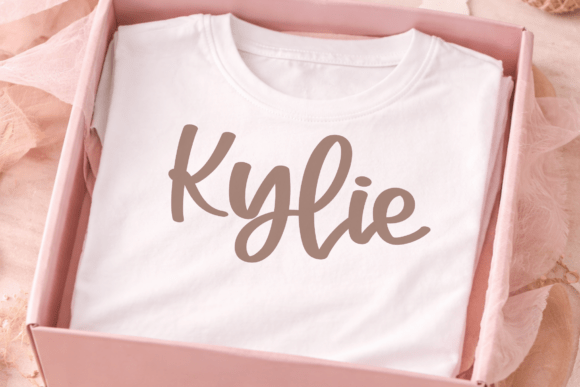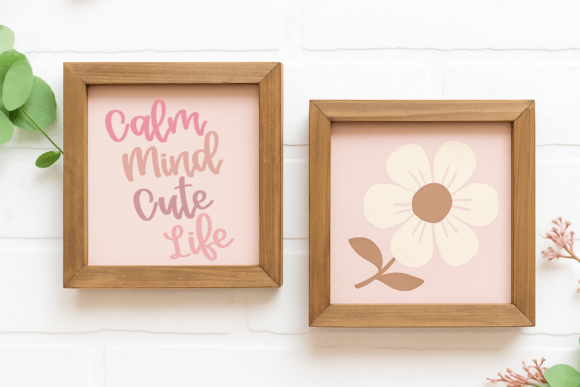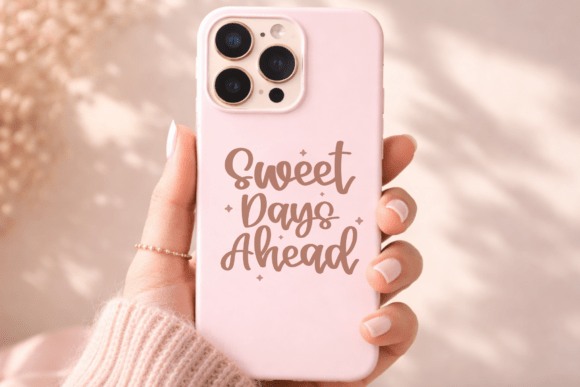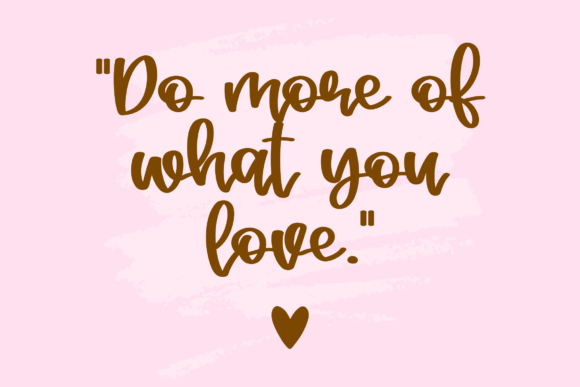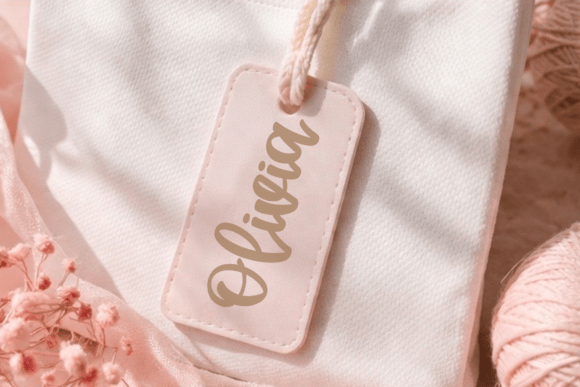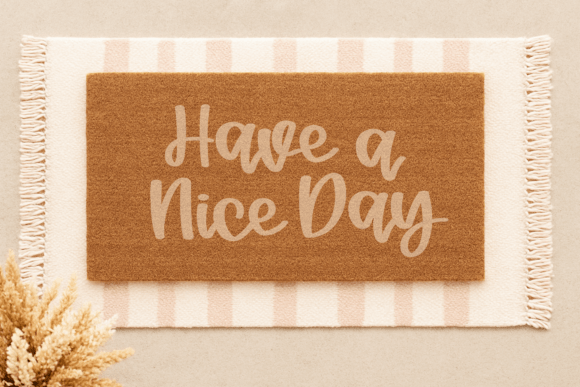
Introduction to Shine Vibes Font
As a creative, have you ever stumbled upon the perfect font that makes your design come alive? For me, that moment happened when I discovered the Shine Vibes Font. Its playful, energetic vibe immediately caught my attention, and I knew I had to share it with fellow designers.
Shine Vibes Font is a game-changer for anyone looking to add a touch of whimsy and personality to their creative projects. With its bold, handwritten flow and rounded curves, this font is perfect for branding, social media graphics, planner covers, and more. Whether you’re a seasoned designer or just starting out, the Shine Vibes Font is a valuable resource that can elevate your designs and make them stand out in a crowded market.
What sets Shine Vibes Font apart is its high-quality design, which remains clean and easy to read while adding a vibrant, handmade touch. Plus, with a transparent background, you can easily use it for digital and print projects. In this article, we’ll dive deeper into the features and benefits of the Shine Vibes Font, and explore how you can use it to take your creative projects to the next level.
Key Features of Shine Vibes Font
- Unique, modern design with a touch of elegance, making it perfect for creative projects.
- Transparent background option allows for easy customization and blending with other design elements.
- Perfect for designers, artists, and creatives looking to add a touch of sophistication to their work.
Honest Review: Shine Vibes Font
I recently stumbled upon the Shine Vibes Font and I have to say, it’s been a game-changer for my design projects. As a designer, I’m always on the lookout for high-quality fonts that can add a touch of personality to my work. The Shine Vibes Font definitely delivers.
What works well: ✨ The font is incredibly versatile and can be used for a wide range of creative projects, from branding to digital designs. The clean and modern design makes it perfect for creating eye-catching visuals. Additionally, the font is available for free download, making it a fantastic design resource for designers on a budget.
- Perfect for branding, digital designs, and more
- Transparent background makes it easy to work with
What doesn’t work so well: ⚠️ The font only comes in a few weights, which may limit its use in certain situations. Additionally, the font may not be suitable for complex or intricate designs.
Overall impression: I’m thoroughly impressed with the Shine Vibes Font and would highly recommend it to designers looking for a reliable and stylish font. With its high-quality design and versatility, it’s a great addition to any design library.
The Shine Vibes Font is ideal for a variety of creative projects, including:
Tips for Getting the Most Out of the Shine Vibes Font
To get the most out of the Shine Vibes Font, use it in combination with other design elements, such as graphics and images. Experiment with different font sizes and styles to create a unique and eye-catching design.